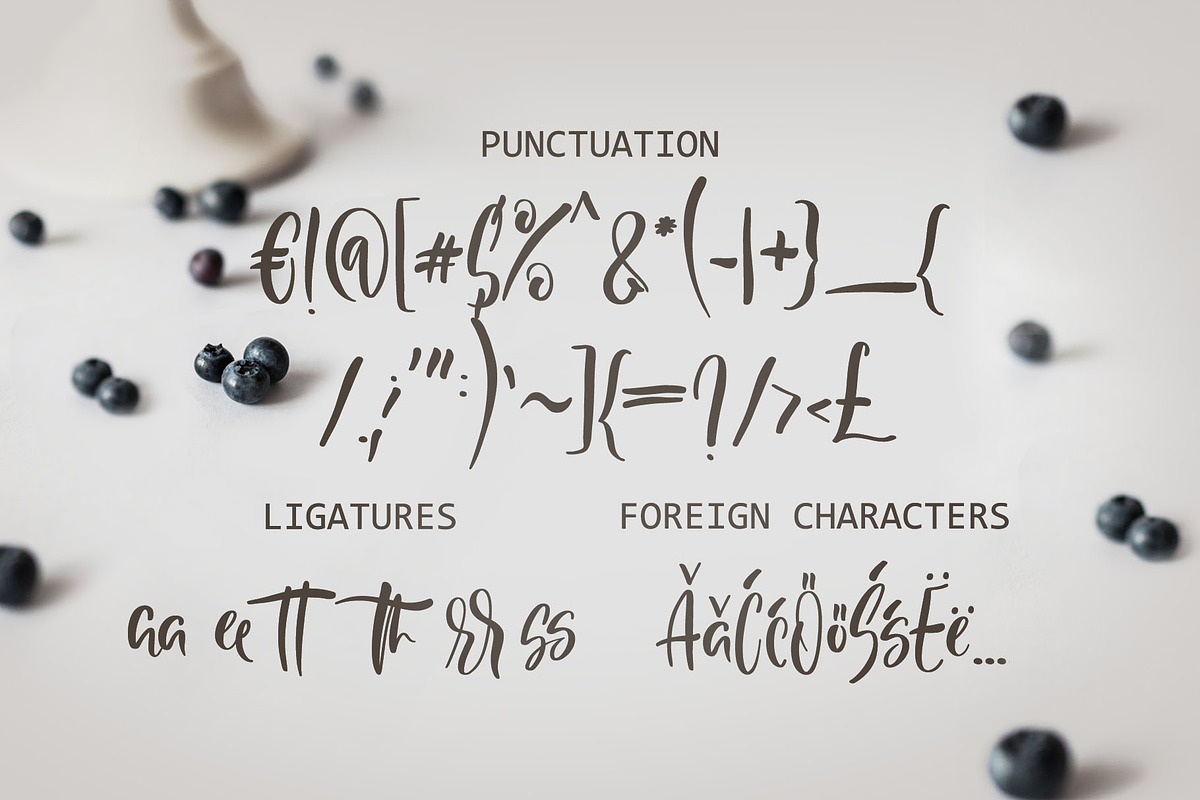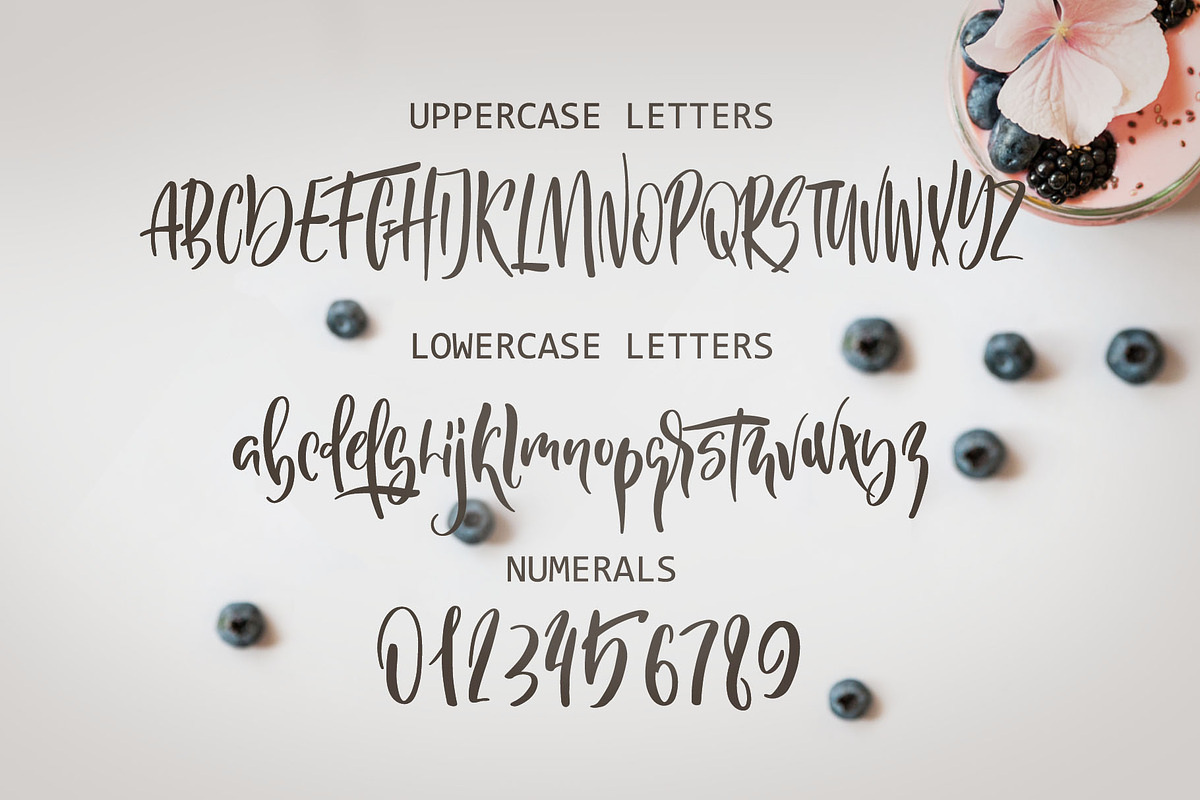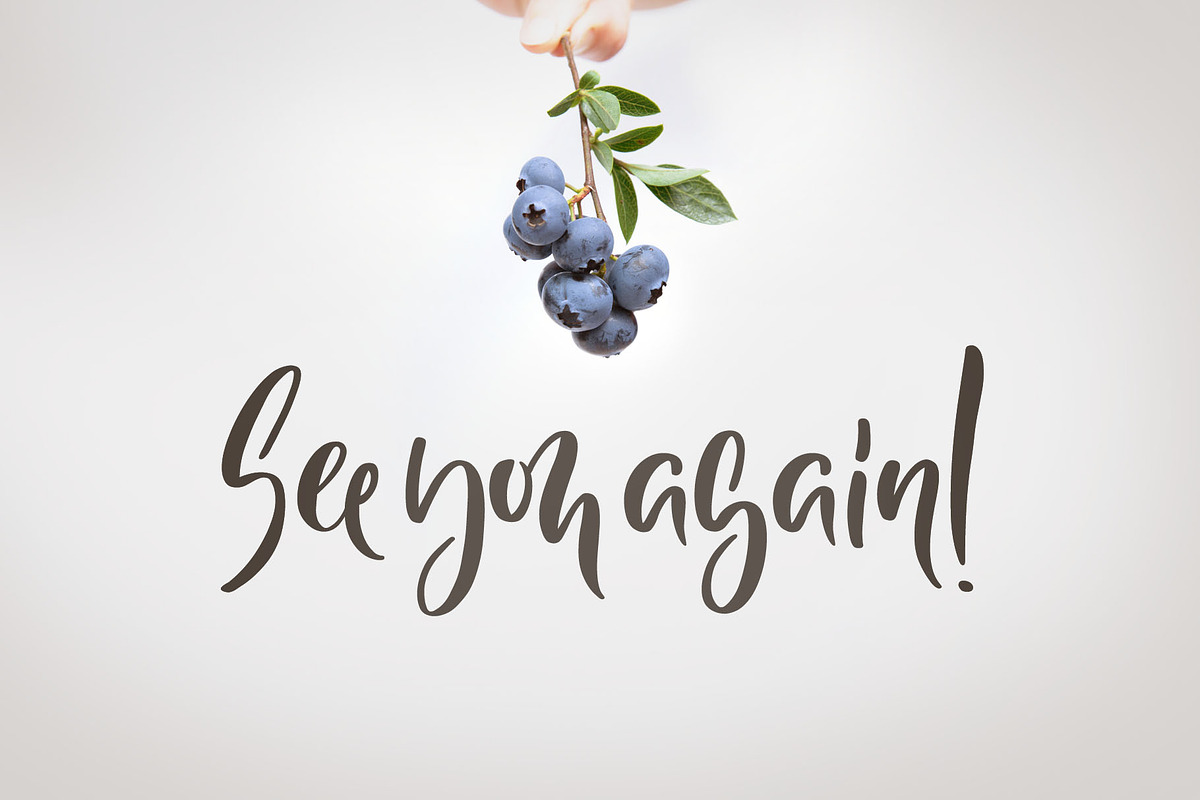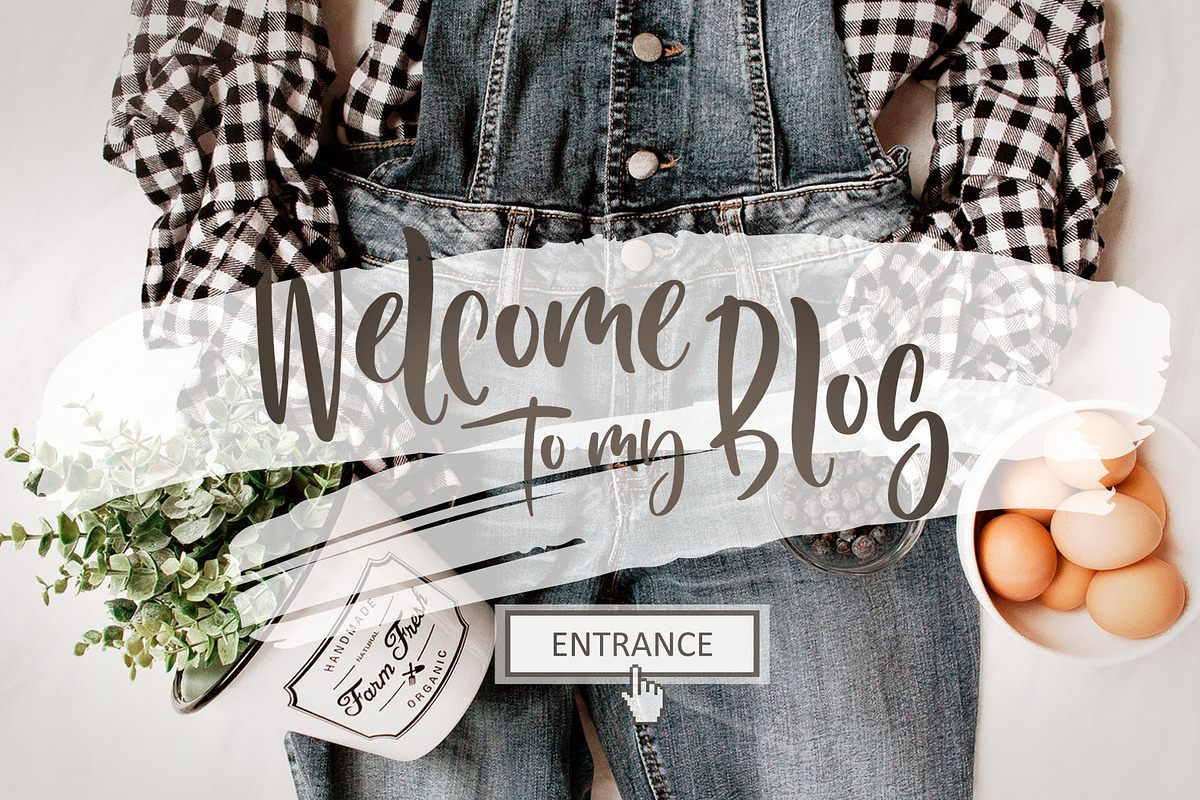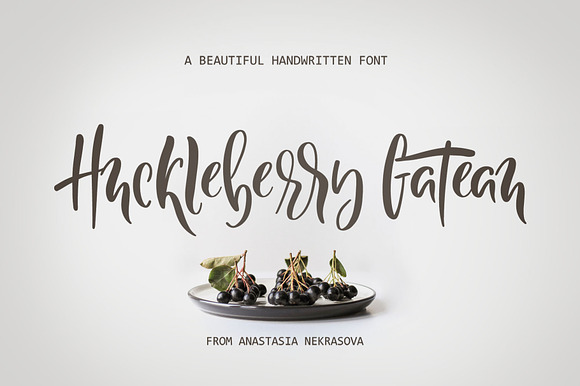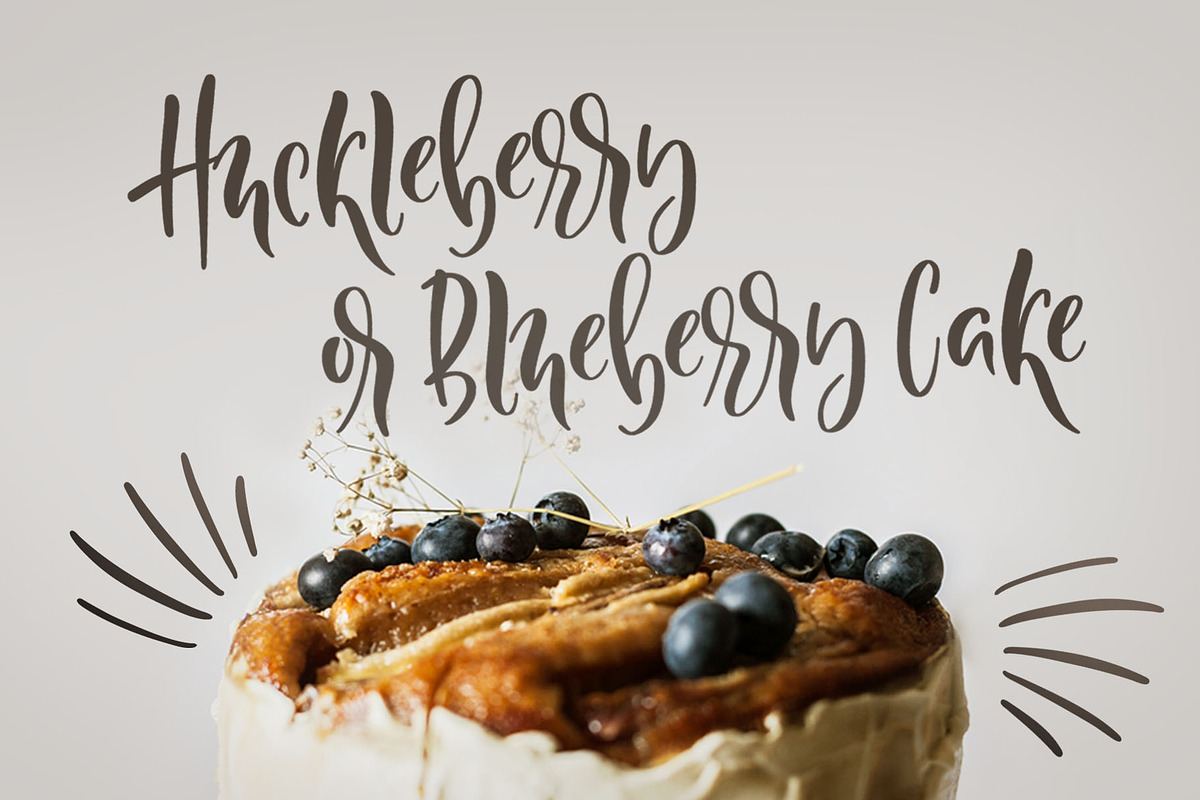
NEW! Huckleberry Gateau Font
Greetings to all of you! I want to introduce my new beautiful handwritten Huckleberry Gateau Font. Use it to design your blog, posts in instagrams, design recipes, magazines, photos, invitations. He is ready for anything! )